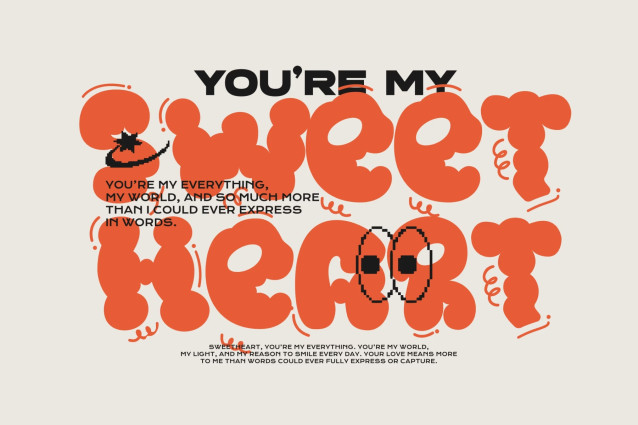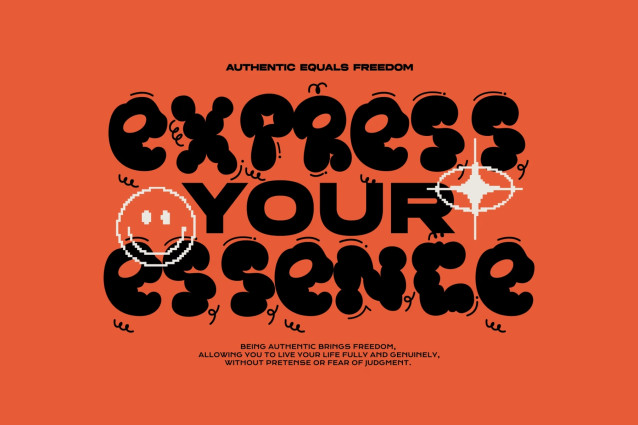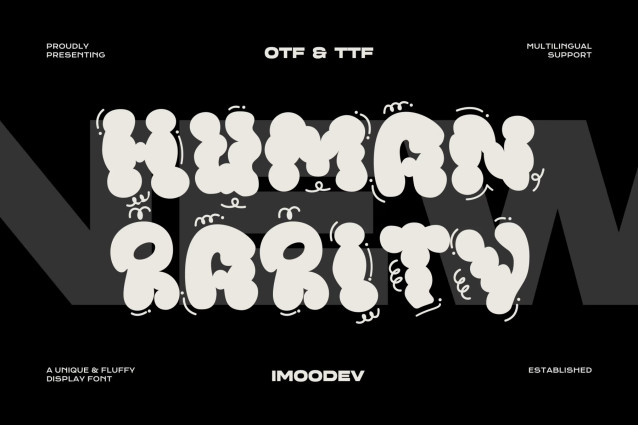
Human Rarity is a playful, puffy display font built from soft, inspired by clustered clouds. What makes Human Rarity stand out is its built-in doodle decoration. Around each glyph float hand drawn accents such as curly swirls, springy loops, motion arcs, dashes, and dots. These marks suggest movement, wobble, and energy, as if the letters are bouncing, jiggling, or popping off the page. The result is part cartoon, part retro sticker art, and part Y2K street style.
This font ideal for posters, album and event artwork, social media graphics, merchandise, apparel, packaging, kids products, candy and snack branding, stickers, greeting cards, and any project that needs a bold, fun, attention grabbing headline. This font also looks great as a clipping mask for photos.